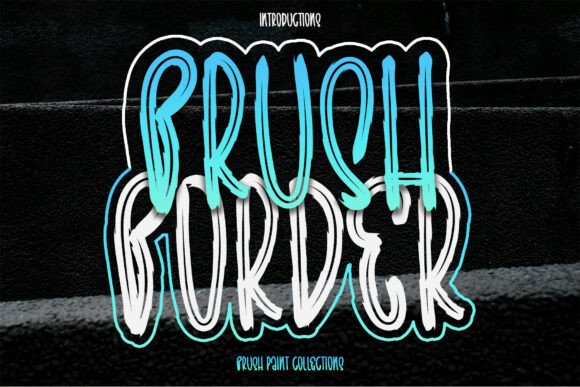
The Magical World of Brush Border Font
Have you ever been in the middle of a design project, and suddenly, you’re stuck on finding the perfect font? I recall a recent experience where I was working on a mystical-themed branding project, and my client requested a font that exuded both elegance and mystery. After scouring through numerous font libraries, I stumbled upon Brush Border Font, and it instantly captivated me with its unique charm. In this article, we’ll dive into the enchanting world of Brush Border Font and explore its features, usage, and alternatives.
A Personal Review of Brush Border Font
I’m excited to share my honest review of Brush Border Font, highlighting what I love and a few quirks to keep in mind.
- ✨ Unique letterforms: Brush Border Font boasts distinctive letterforms that add a touch of sophistication to any design.
- ✅ Elegant and mystical vibe: This font seamlessly blends elegance and mystery, making it perfect for projects that require a sense of wonder.
- 💫 Versatility: Brush Border Font can be used for a wide range of projects, from modern and bold designs to elegant and refined ones.
While Brush Border Font is an exceptional font, there are a few things to consider:
- ⚠️ Legibility at small sizes: Brush Border Font can be challenging to read at small font sizes, so it’s best to use it at larger sizes (e.g., 24px or larger) for optimal legibility.
- 🤔 Limited use of uppercase letters: Some designers might find the font’s uppercase letters less visually appealing than the lowercase letters.
The Backstory of Brush Border Font
Brush Border Font was designed by a talented typographer who aimed to create a font that would evoke a sense of mystery and wonder. Inspired by ancient mystical symbols and elegant calligraphy, Brush Border Font was born. The designer’s goal was to craft a font that would add a touch of sophistication and enchantment to any design.
Q: What type of projects is Brush Border Font best suited for?
A: Brush Border Font is perfect for projects that require a sense of mystery, elegance, and wonder, such as mystical-themed branding, wedding invitations, and fantasy novels.
Q: Is Brush Border Font suitable for body text?
A: While Brush Border Font can be used for body text, it’s recommended to use it at larger font sizes (e.g., 18px or larger) for optimal legibility.